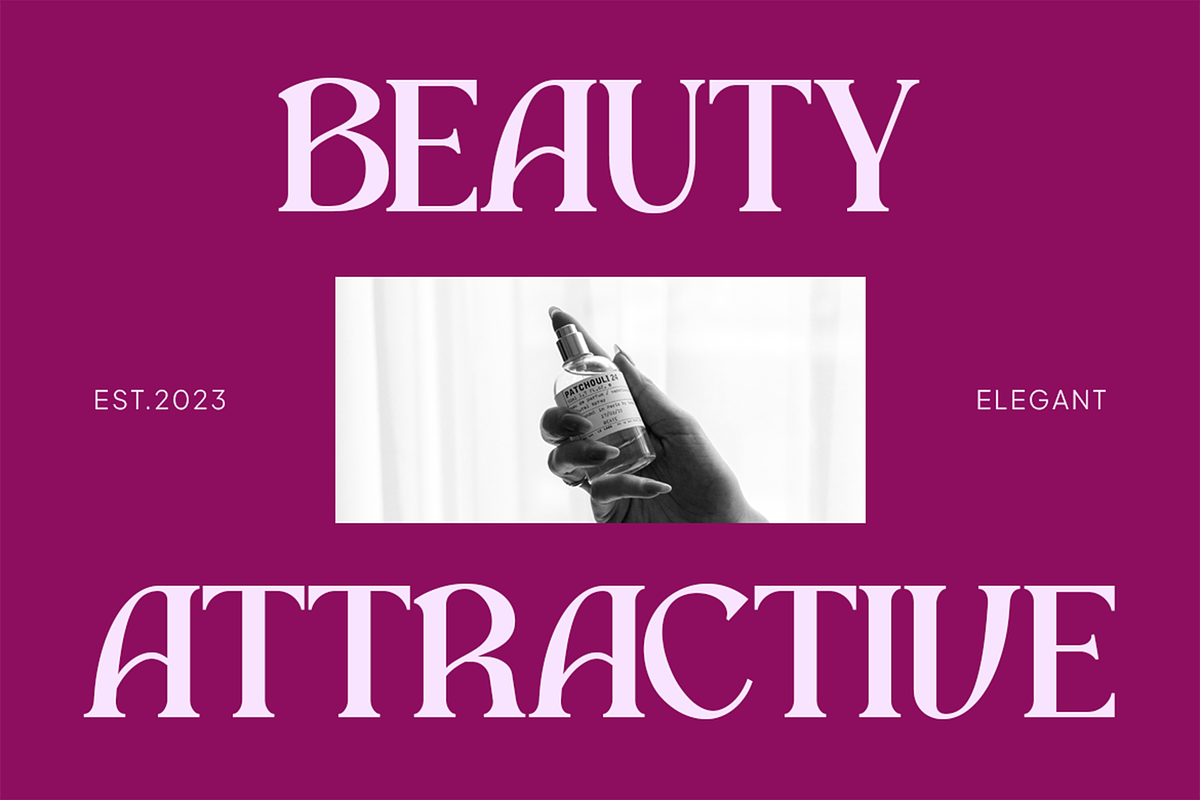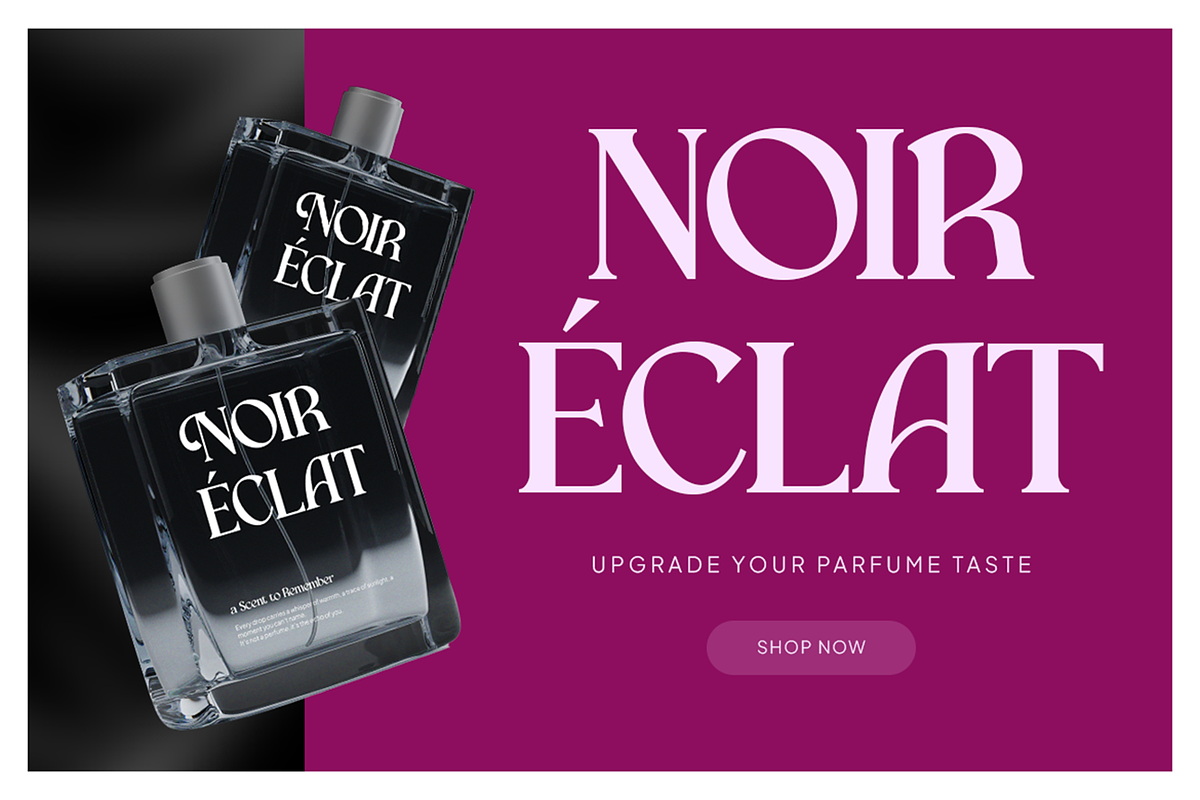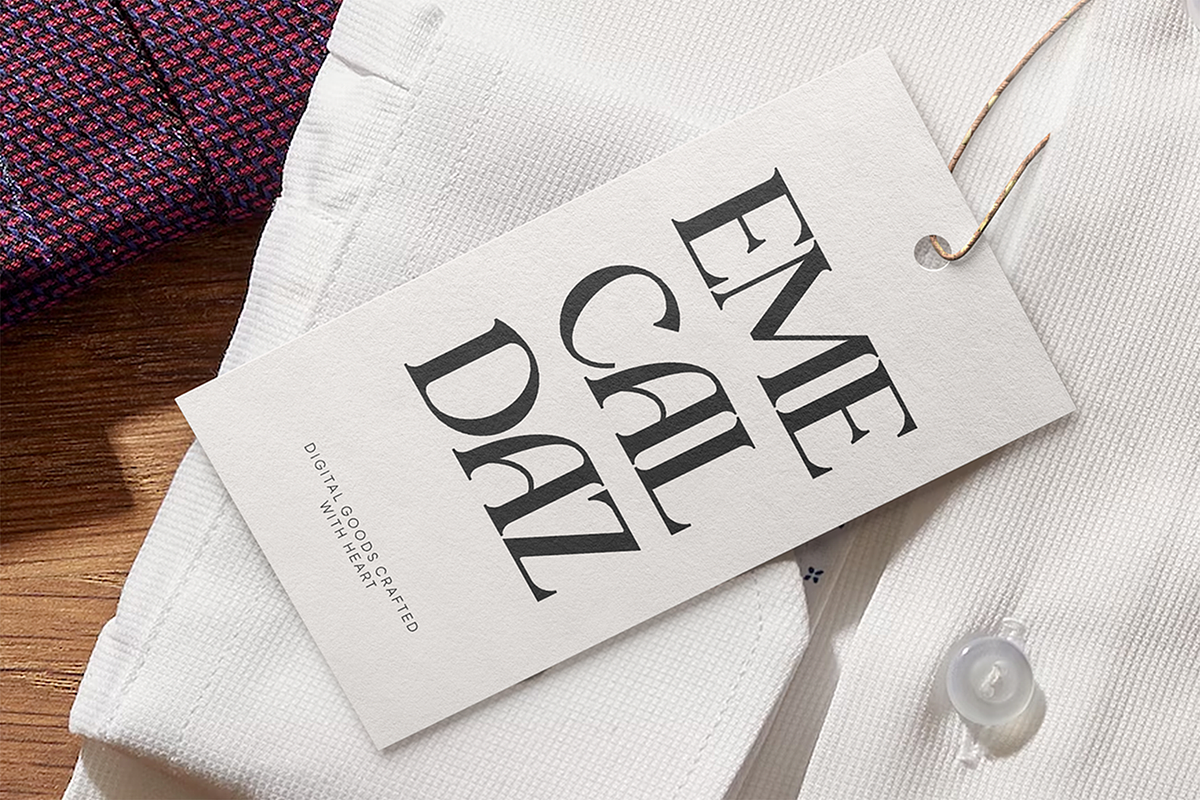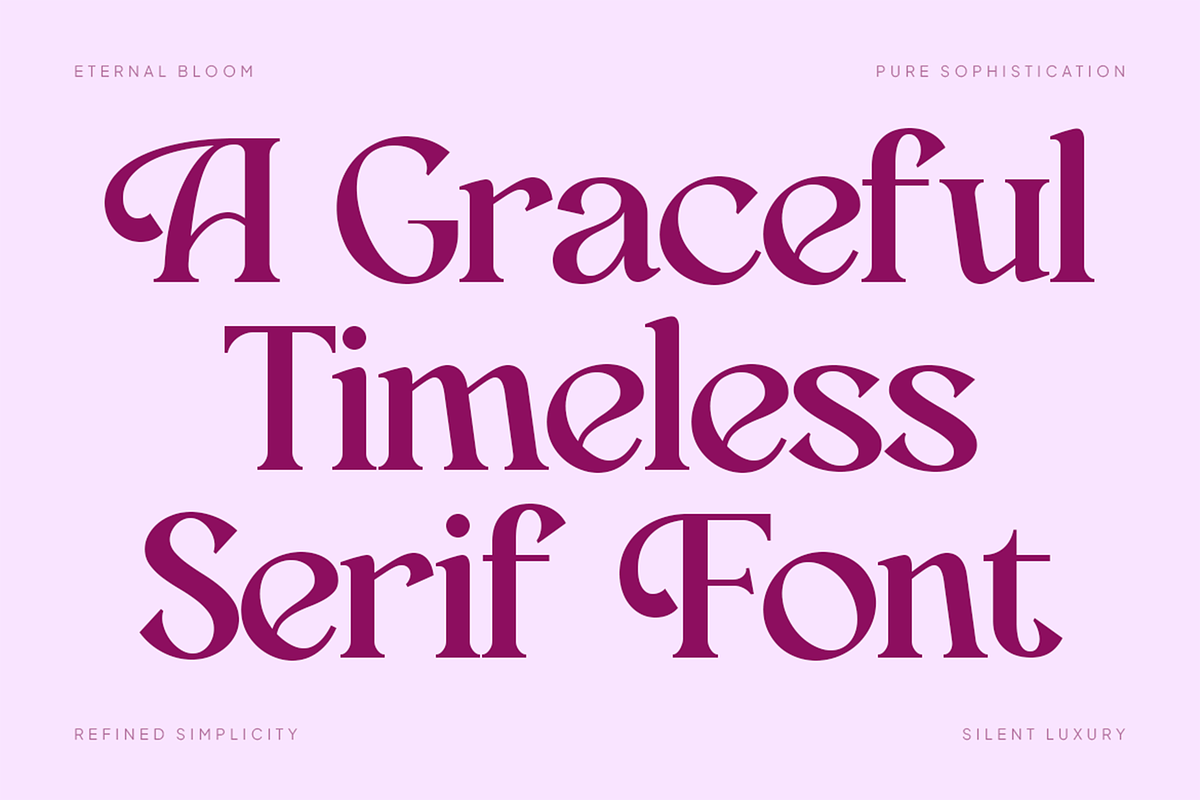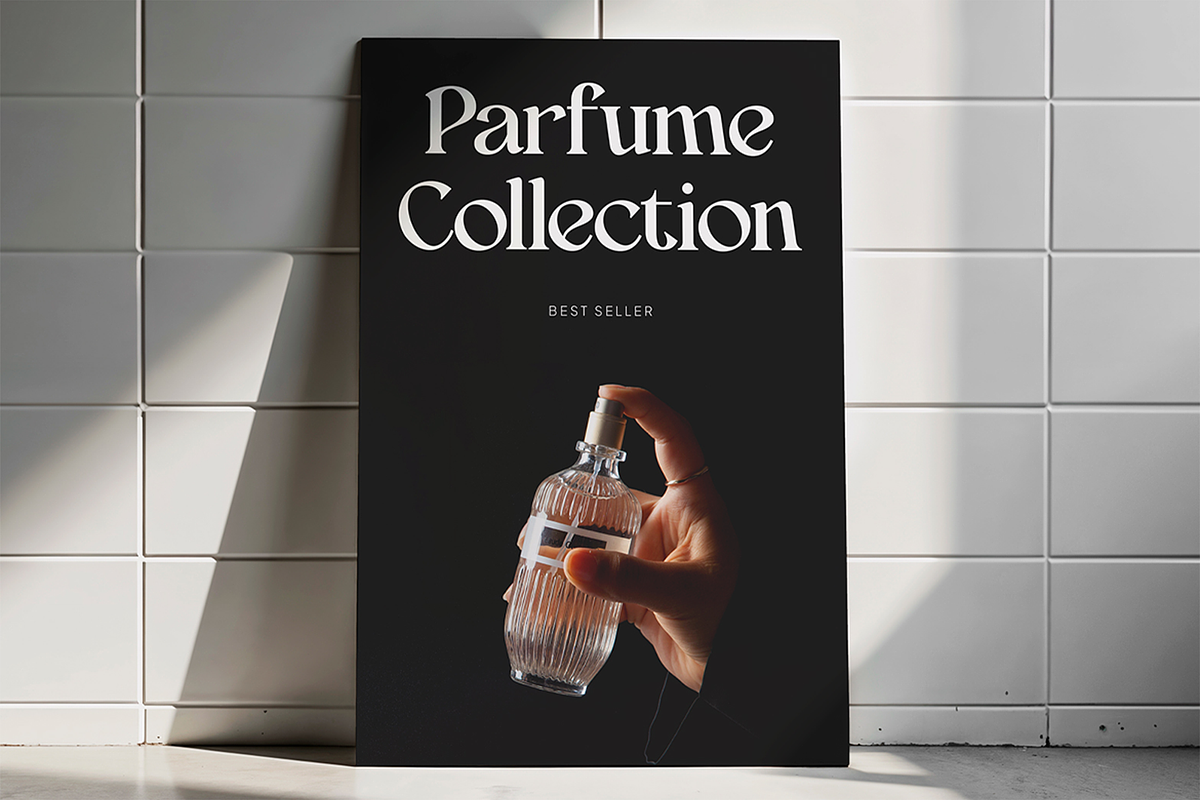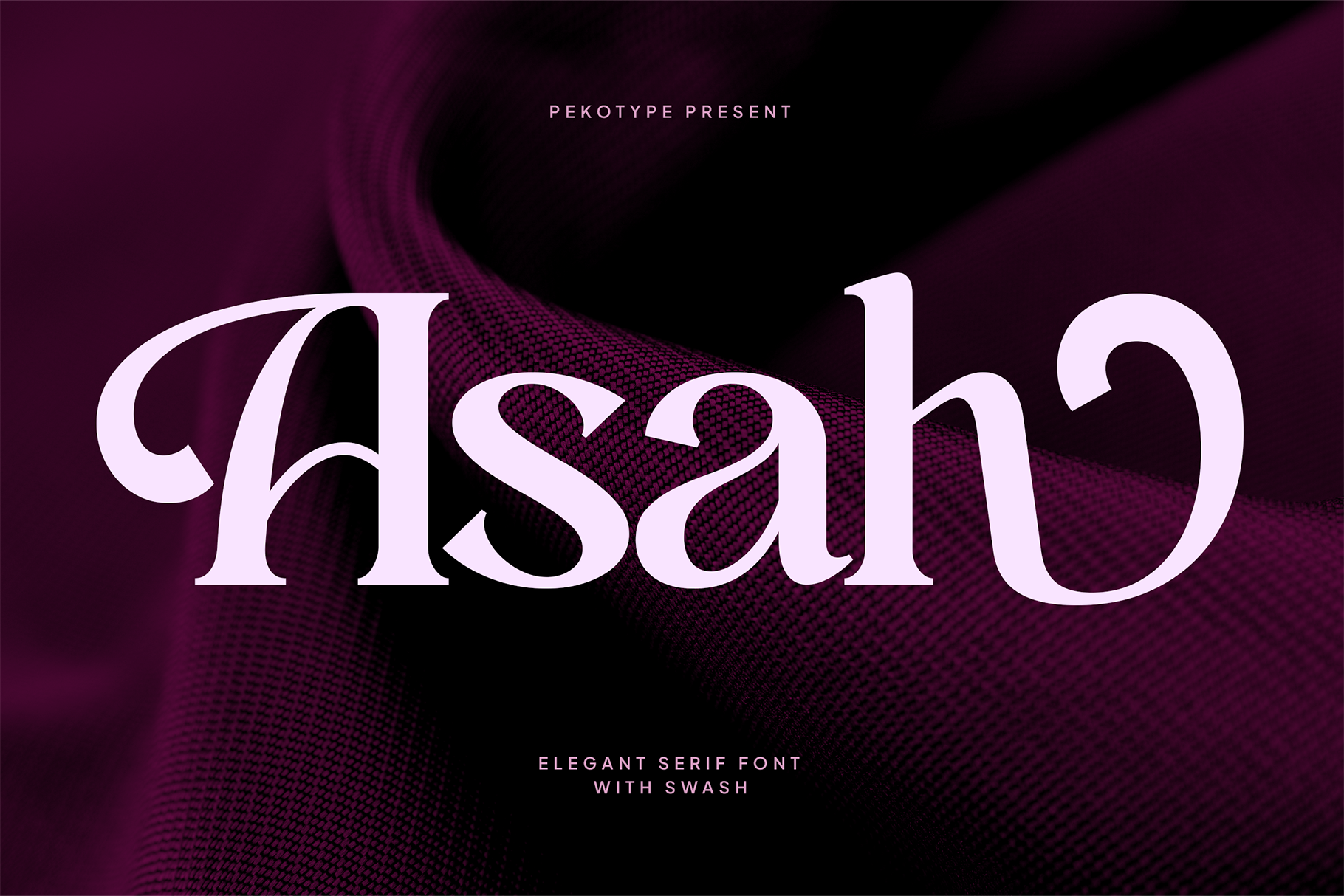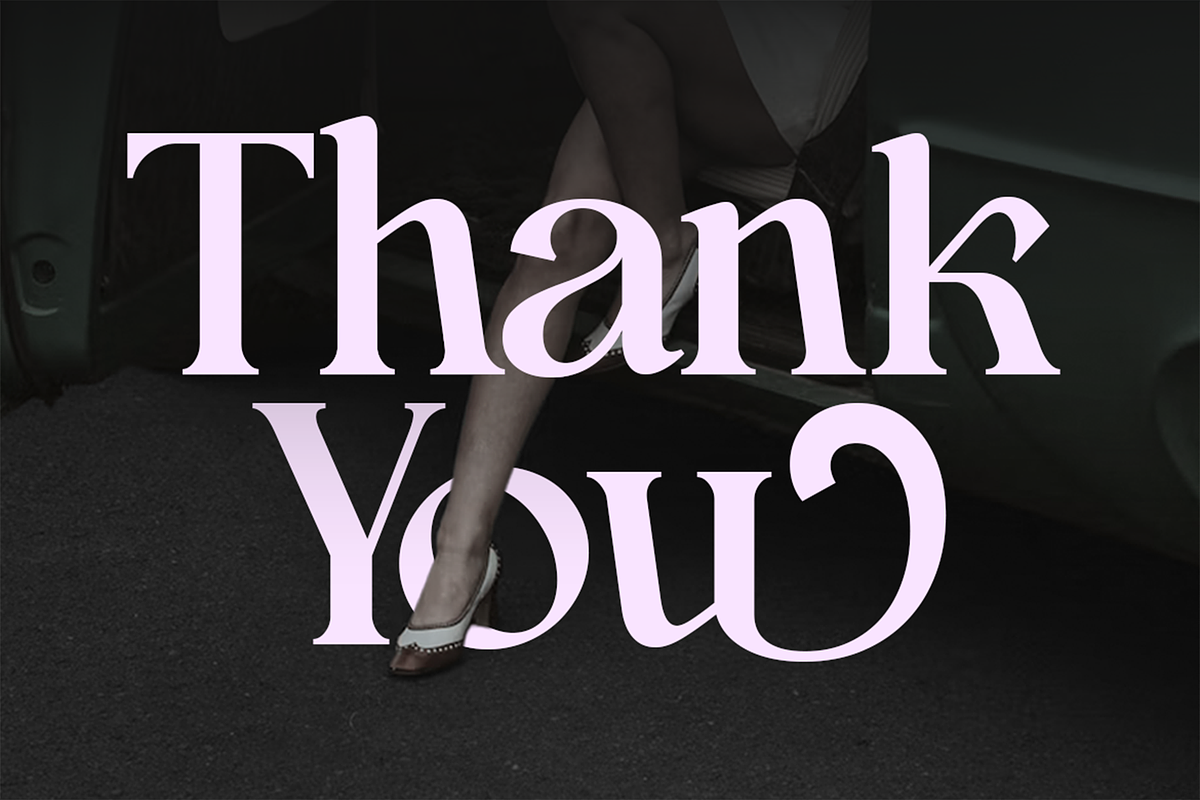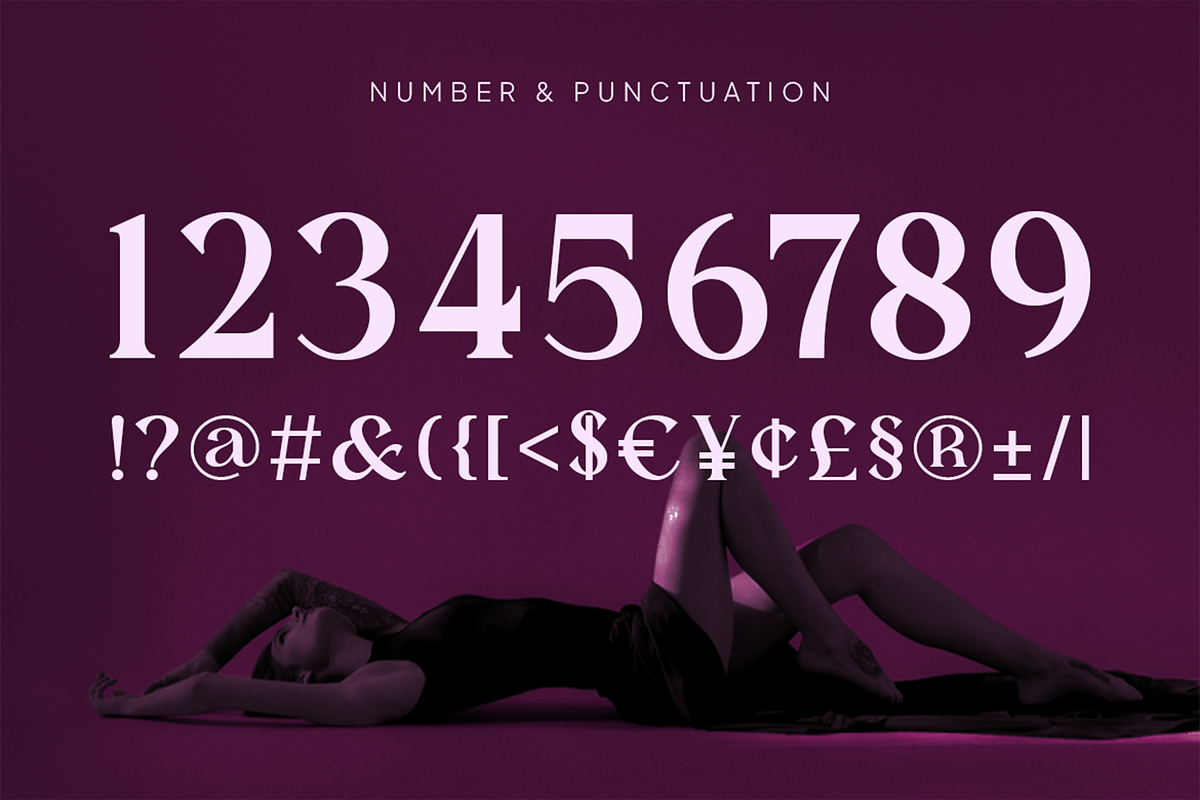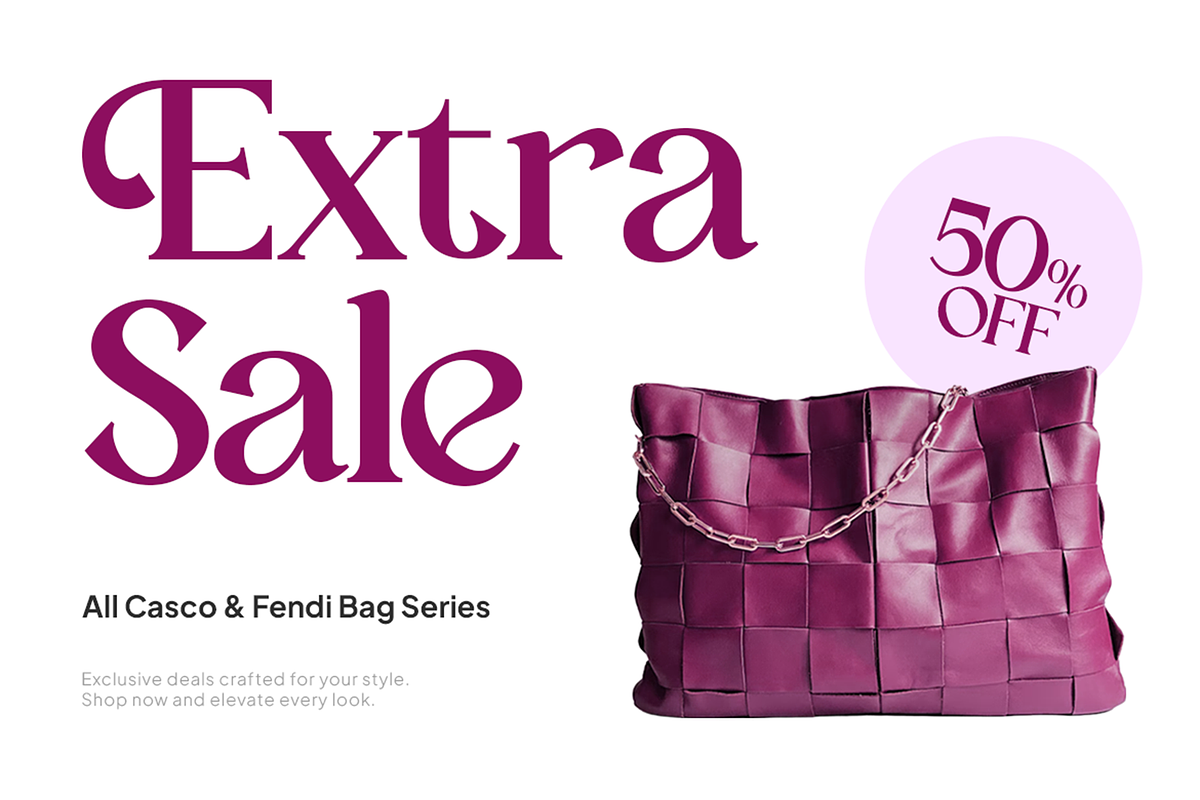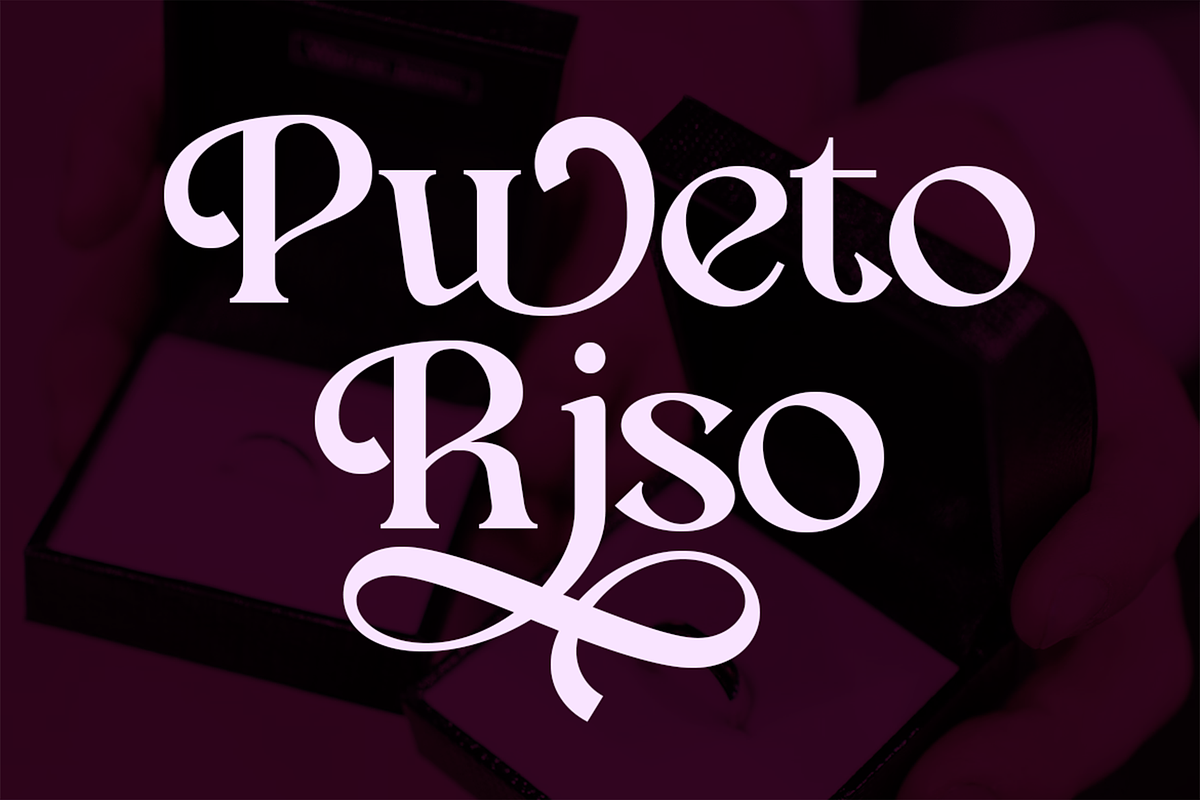
Asah – Elegant Luxury Serif Font
ASAH – Elegant Timeless Serif Font for Luxury Branding
ASAH is a refined serif typeface crafted to express elegance, balance, and timeless beauty. Designed with graceful curves, high-contrast strokes, and sophisticated letterforms, ASAH delivers a premium typographic feel that works effortlessly across both classic and modern design needs.
Featuring uppercase and lowercase characters with multilingual support, ASAH offers flexibility for global branding and editorial use. Its calm yet confident personality makes it ideal for logos, branding identities, fashion labels, beauty products, editorial layouts, invitations, social media graphics, and high-end marketing materials.
ASAH's timeless serif construction ensures long-term relevance, making it a strong choice for designers who value longevity, clarity, and refined aesthetics. Whether used in luxury branding, minimalist promotions, or elegant storytelling visuals, ASAH brings sophistication and professionalism to every design it touches.
If you’re searching for an elegant serif font that blends modern usability with classic charm, ASAH Typeface is a versatile and reliable choice for premium creative projects.
- Number, Symbol, & Punctuation